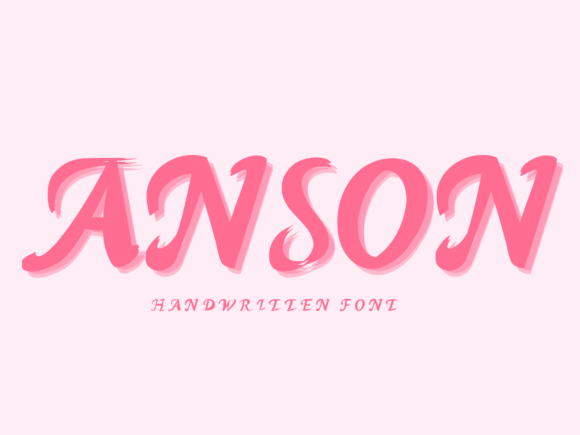
Unleash the Charm of Anson Font: Your Gateway to Modern Elegance
Embark on a typographic journey with Anson Font, a captivating script font that will infuse your designs with a touch of modern charm. Created by the visionary Pukka De, this font exudes a sweet and friendly personality, making it the perfect choice for a wide range of design projects.
With its natural and unique style, Anson Font seamlessly adapts to various concepts, inviting you to explore limitless creative possibilities. Whether you're crafting logos, invitations, branding materials, or social media graphics, Anson Font is your trusted companion, transforming your ideas into visually stunning masterpieces.
Discover the Enchanting World of Anson Font:
- Capture Hearts with Its Sweet and Friendly Demeanor: Anson Font's amiable character shines through in every letterform, evoking feelings of warmth and approachability. Its playful yet refined aesthetic adds a touch of whimsy to your designs, leaving a lasting impression on your audience.
- Unleash Your Creativity with Limitless Applications: Anson Font's versatility knows no bounds. Its malleable nature allows it to effortlessly blend with a variety of design styles, from the classic elegance of traditional layouts to the vibrant energy of contemporary creations. Whether you're working on web designs, posters, flyers, or product packaging, Anson Font is your versatile partner in visual expression.
- Elevate Your Designs with a Modern Flair: Anson Font brings a breath of fresh air to your designs, imbuing them with a modern sophistication. Its carefully crafted curves and delicate details reflect the essence of contemporary design trends, ensuring that your creations remain relevant and visually appealing in the ever-evolving digital landscape.
Join the Creative Revolution with Anson Font:
Anson Font is more than just a font; it's a gateway to a world of creative possibilities. With its captivating charm and boundless versatility, this font empowers you to transform your ideas into captivating visual narratives. Embrace the magic of Anson Font and let your creativity soar.